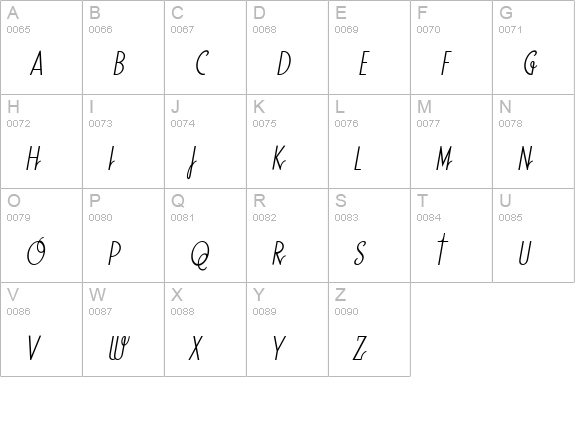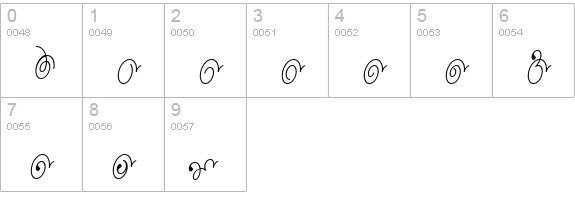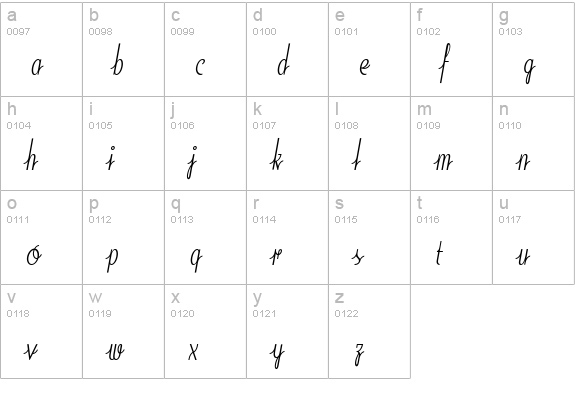
SodaScriptExtras-Light Font Details
SodaScriptExtras-Light is a refined, elegant variant in the SodaScriptExtras typeface family \xE2\x80\x94 well suited to elegant body text, refined sub-headings, and luxury branding.
SodaScriptExtras-Light font is a stunningly elegant and versatile typeface that will add a touch of sophistication to any design project. Its delicate and flowing lines evoke a sense of grace and modernity, making it perfect for a wide range of applications. This font features a light weight that adds a subtle and airy feel to your designs, making it ideal for headlines, titles, and body text. Its unique script style adds a playful and whimsical charm that is sure to capture attention. Not only is SodaScriptExtras-Light font visually appealing, but it is also highly functional. It is designed with legibility in mind, ensuring that your text is easy to read across various mediums and sizes. What makes this font even more enticing is the fact that it is freely available to download at FontsMarket.com. This means that you can enjoy the beauty and versatility of SodaScriptExtras-Light font without any cost or restrictions. Whether you are a professional designer or a hobbyist, this free font is a valuable addition to your creative arsenal. So, if you are looking to add a touch of elegance and character to your next design project, look no further than SodaScriptExtras-Light font. Download it for free at FontsMarket.com and let your creativity soar.